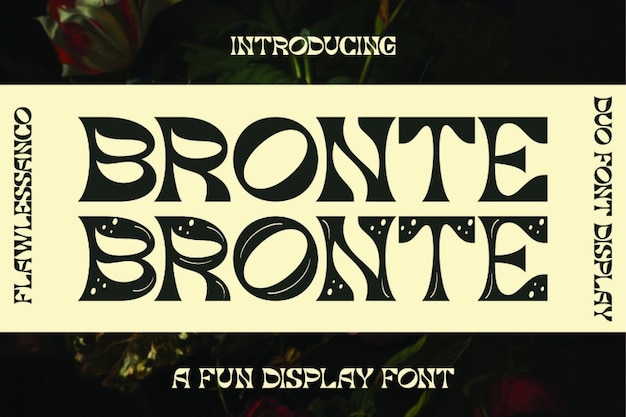
Bronte Font
Flawless and Co
"Bronte" font channels the vintage allure of the 1920s Art Deco era with its elegant inline design. Each letter boasts sleek lines and geometric shapes, capturing the essence of retro sophistication. Perfect for adding a touch of timeless glamour to your projects, "Bronte" evokes the opulence and style of the roaring twenties, making it ideal for posters, invitations, and branding with a nostalgic twist.